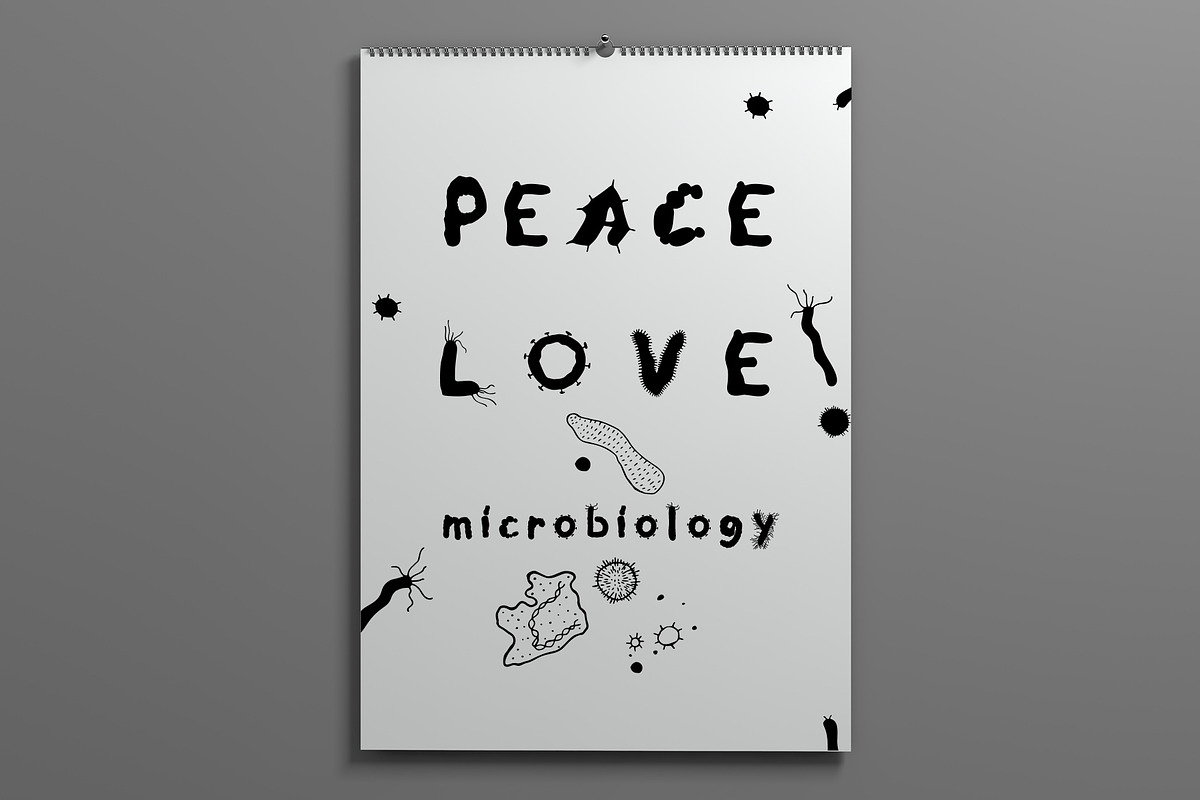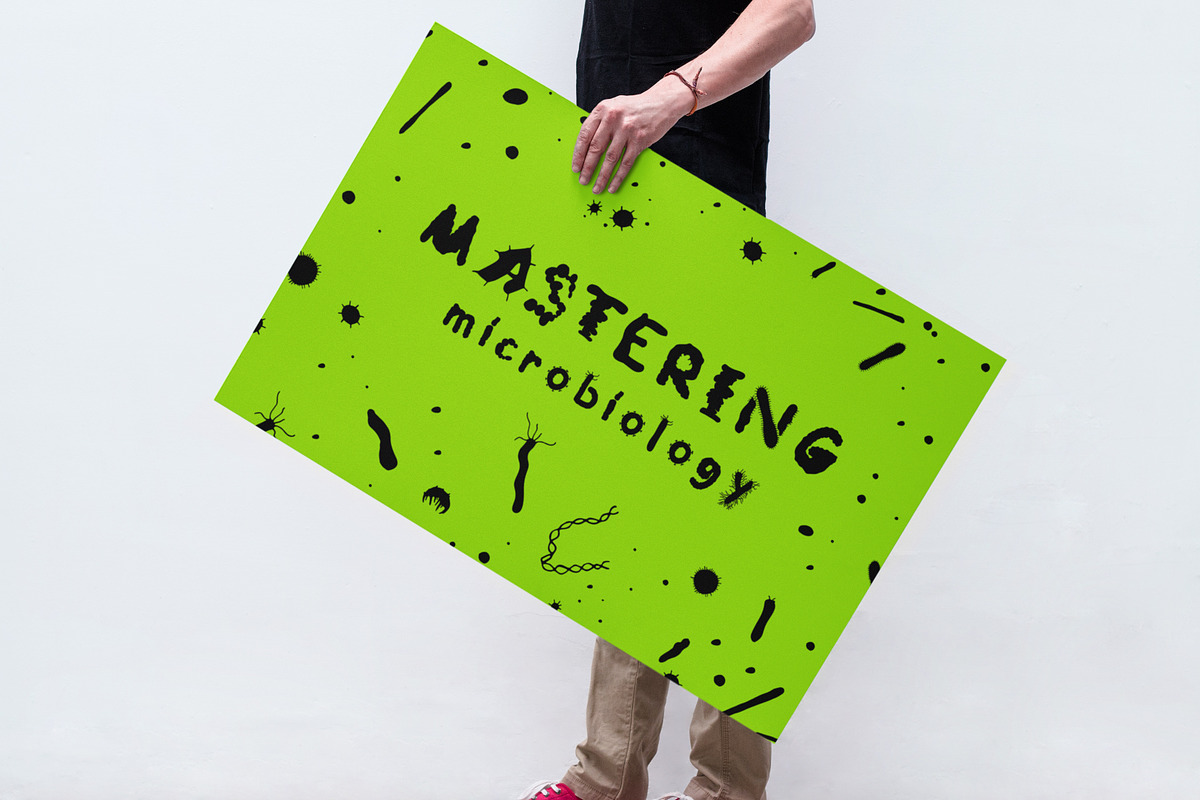
Microbiology Lover
Hi! I'm happy to introduce my MICROBIOLOGY LOVER kit!
If you work with biology and microbiology projects, if you want to create something fresh, cute and with a sense of humor - you will certainly enjoy this product, including the unique font that is perfect for scientific posters, T-shirt prints and other designs.
MICROBIOLOGY FONT is a display font, that consist of not only basic character set (uppercase letters, lowercase letters, punctuation marks, numbers, most common glyphs), but also advanced character set, supporting such languages as French, German, Italian, etc. You get it in .OTF format
The best font size: starts from 12 pt and bigger. But you can also use it in smaller sizes.